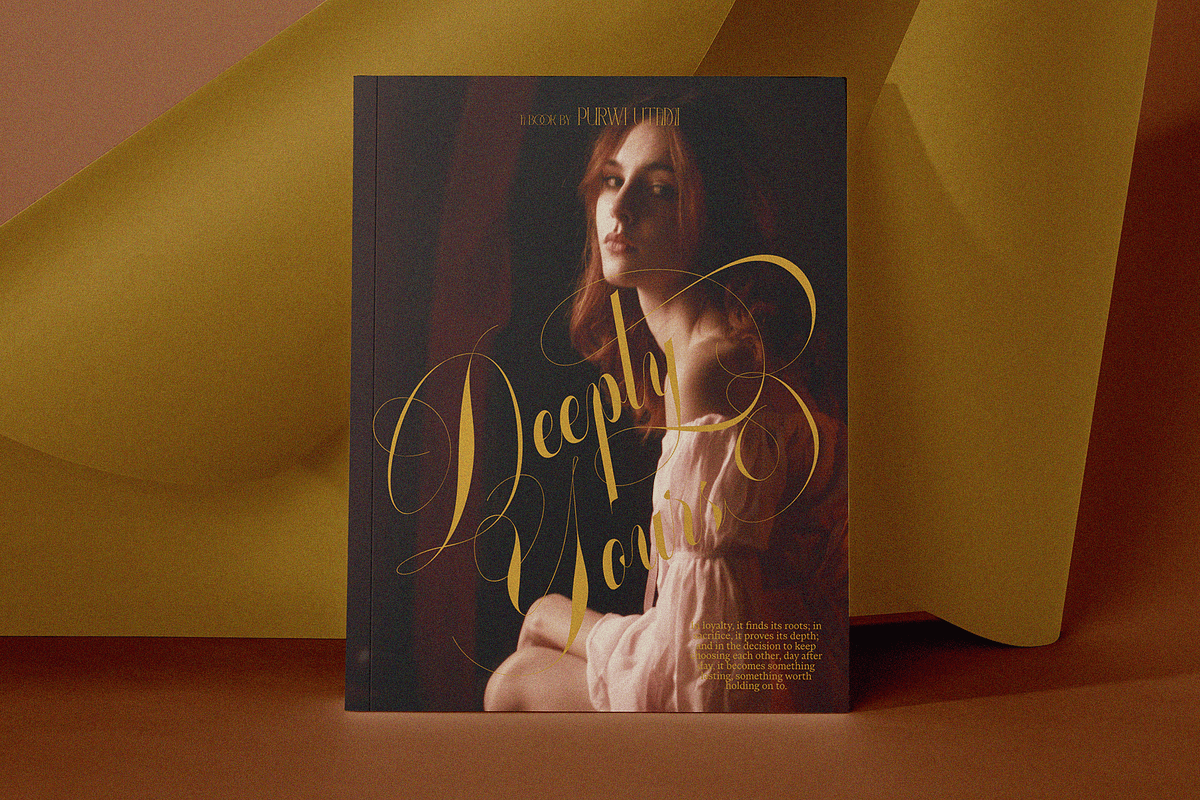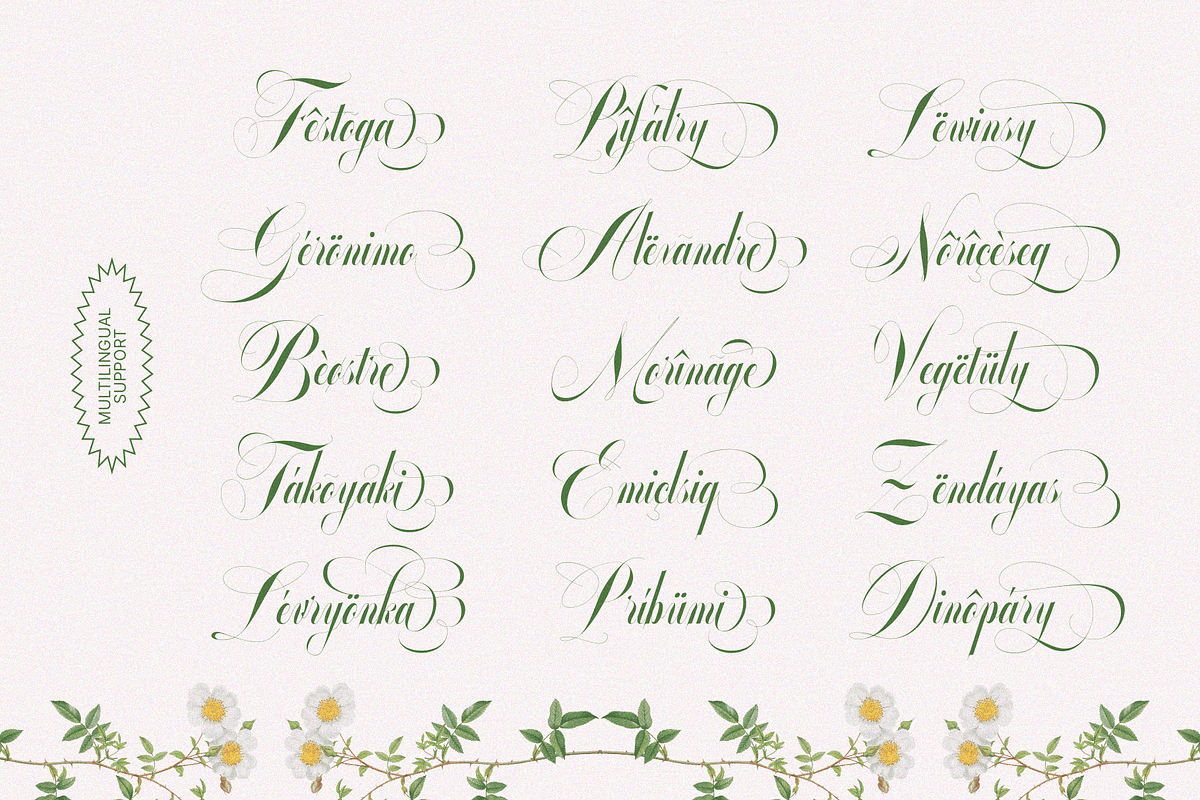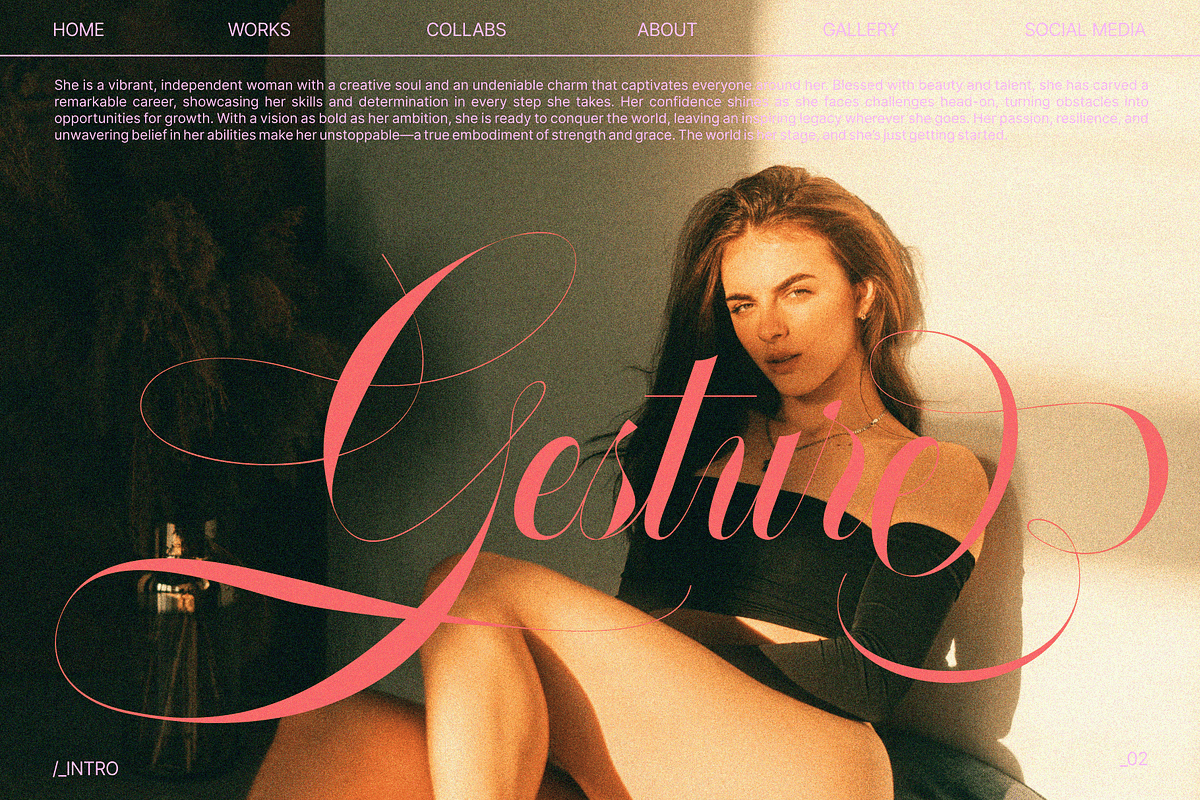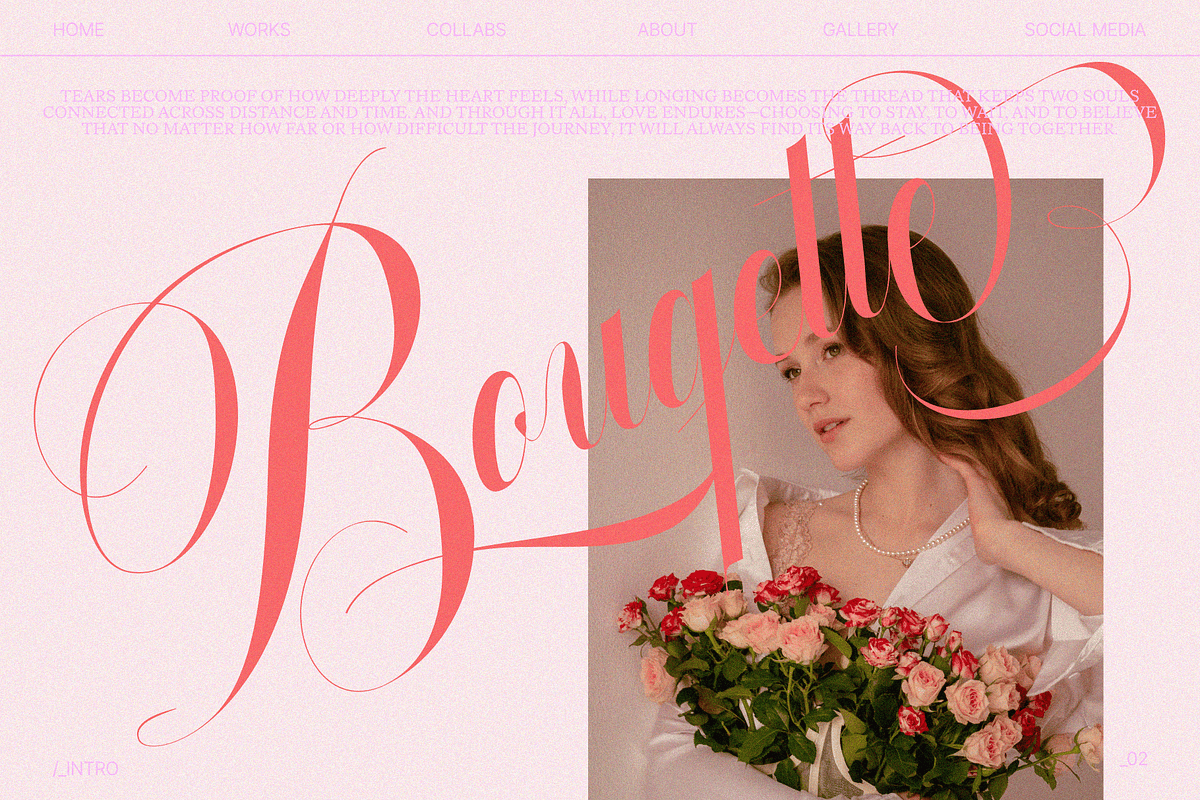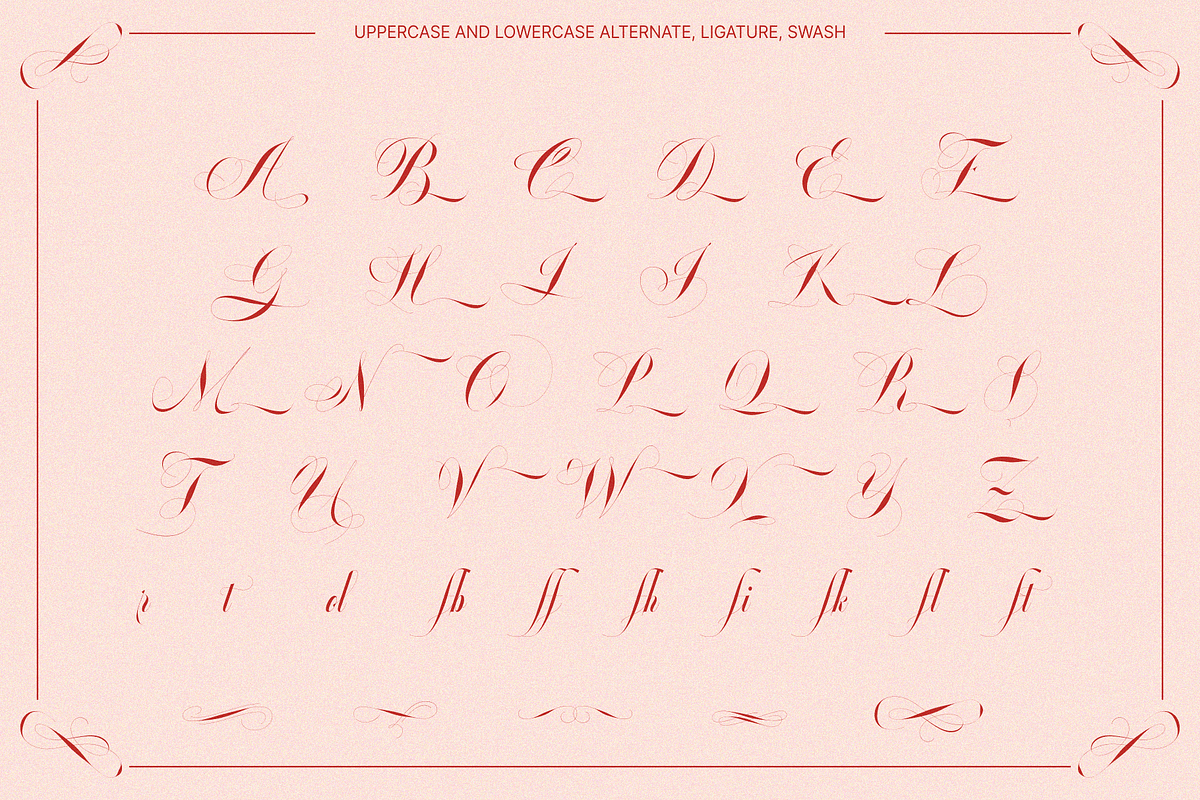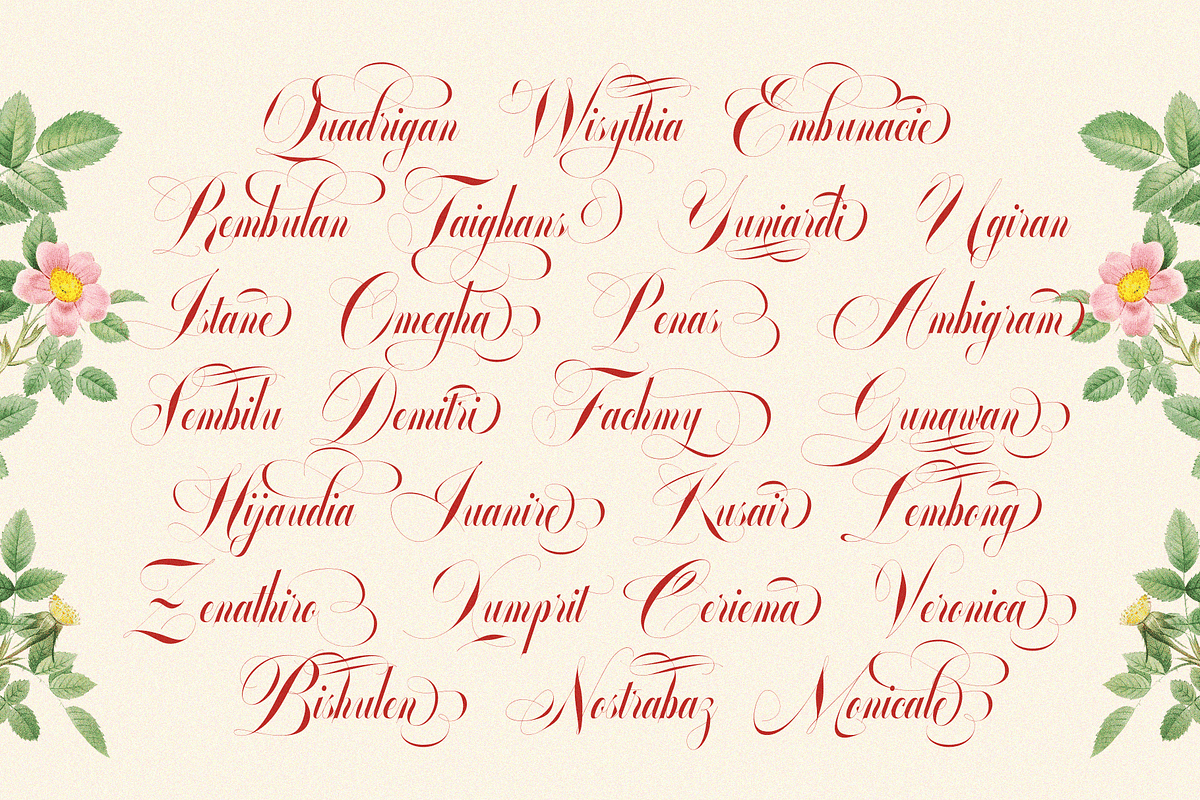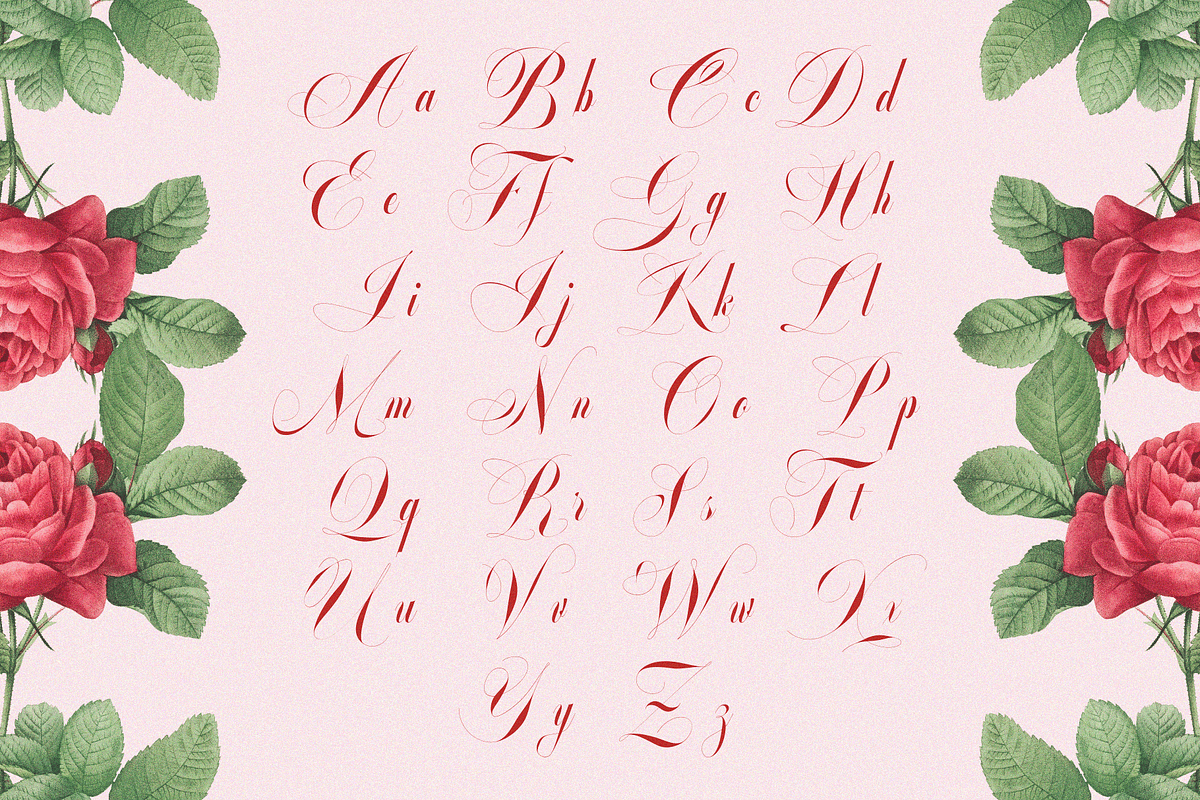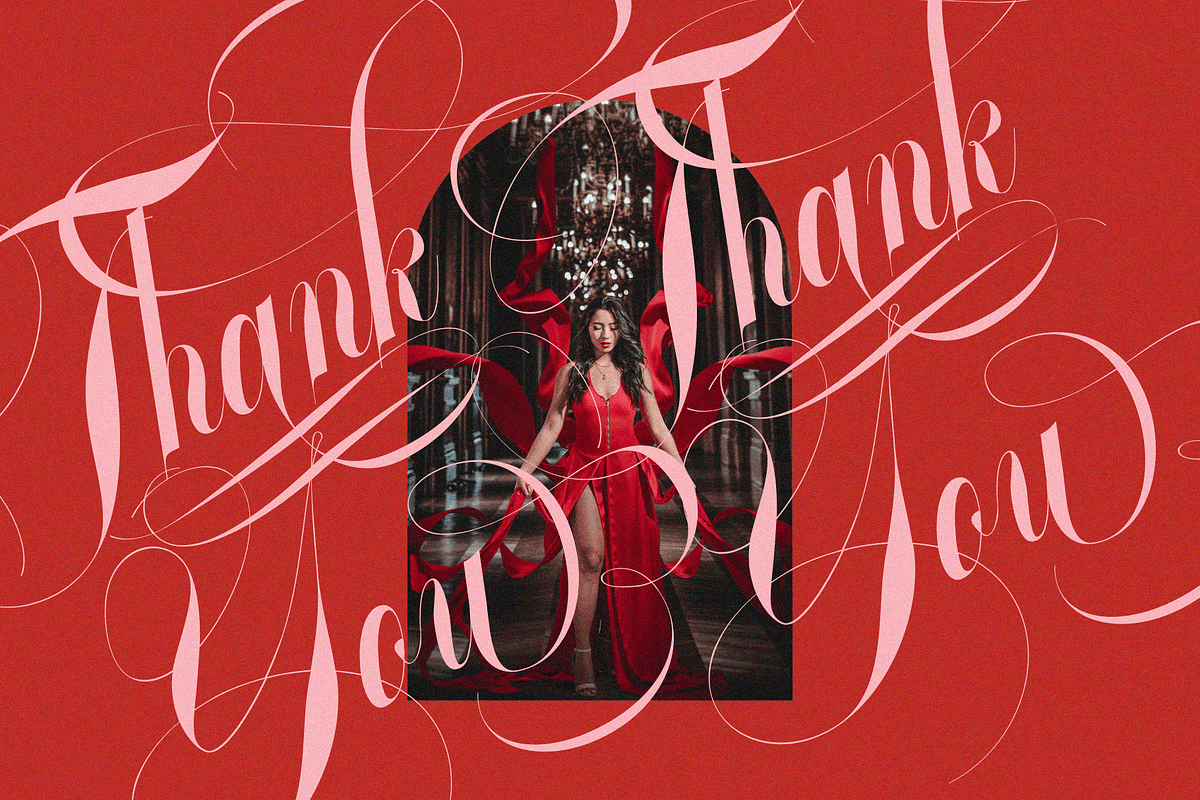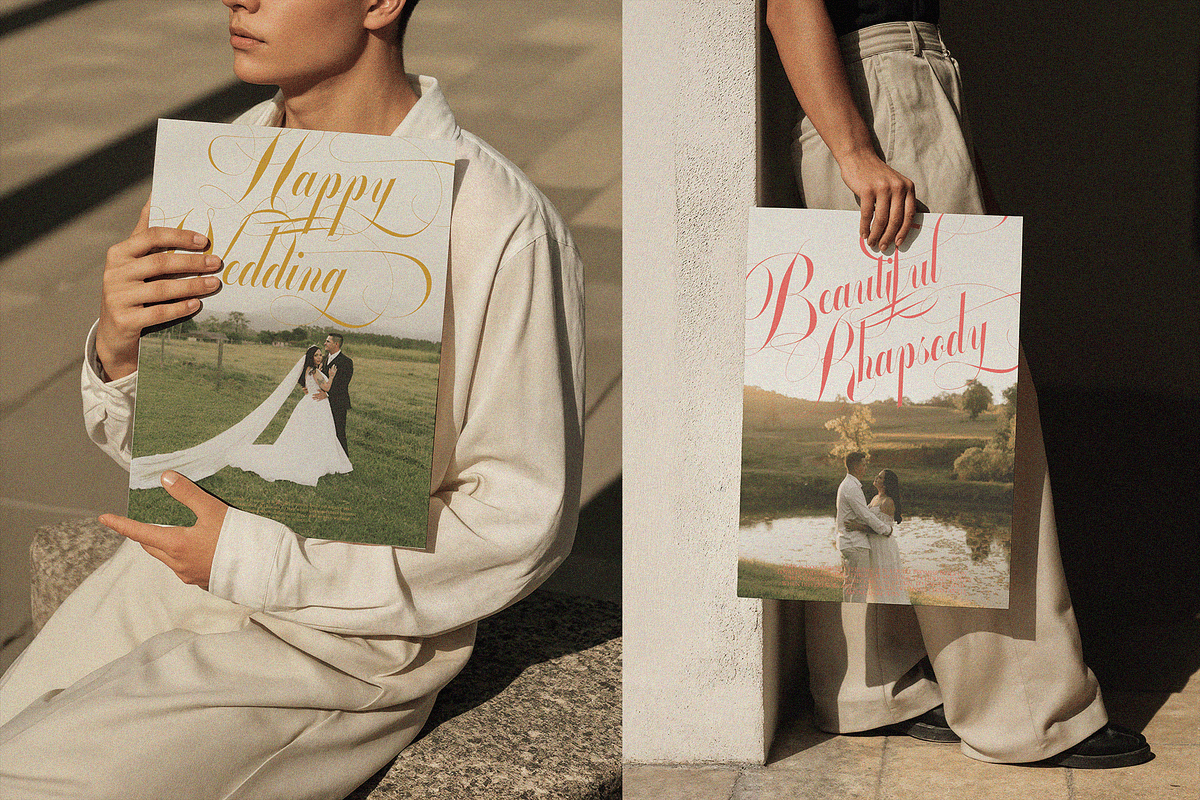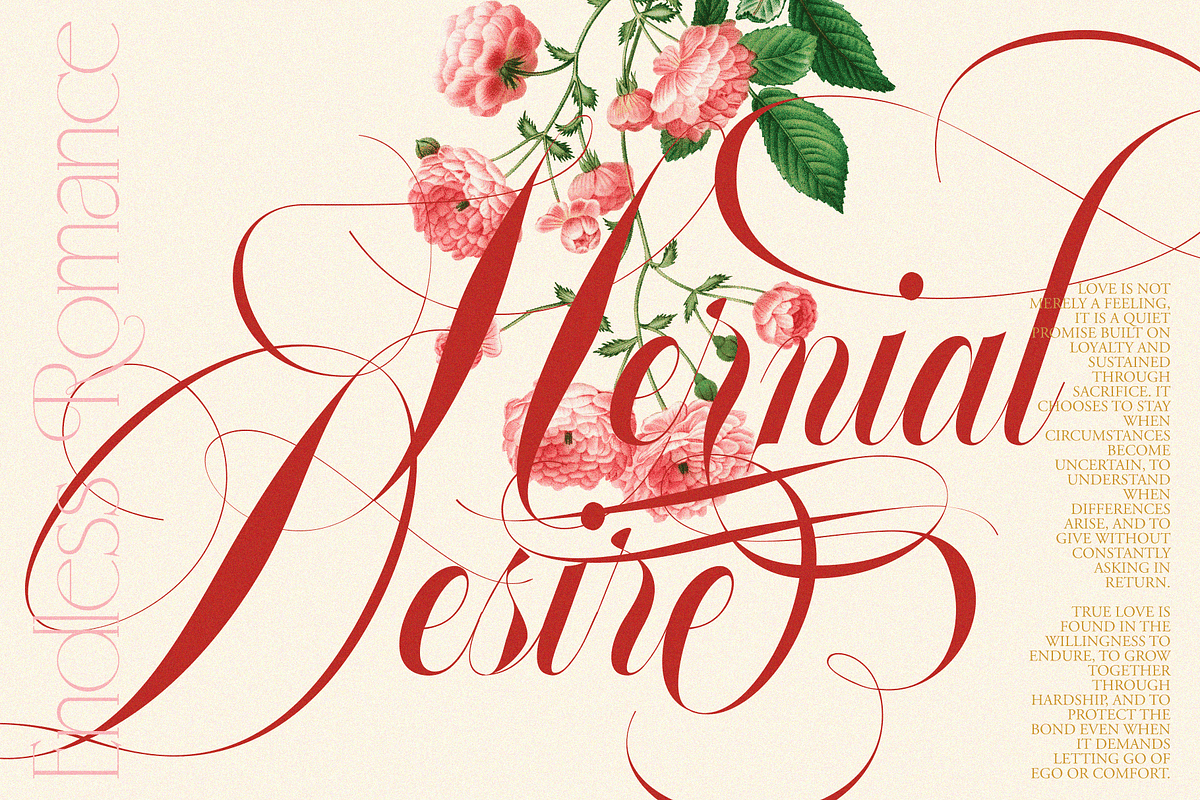
GLOWING ROMANCE — Luxury Calligraphy
GLOWING ROMANCE is a timeless modern script calligraphy font that embodies elegance, luxury, and refined beauty. Designed with flowing strokes and graceful curves, it delivers a lavish and premium aesthetic that feels both romantic and sophisticated. Every letter is carefully crafted to create a harmonious balance between bold expression and delicate elegance, making it perfect for high-end visual storytelling.
With its smooth connections and elegant rhythm, GLOWING ROMANCE elevates any logo, brand, or fashion identity with a sense of glamour and exclusivity. This script font captures the essence of luxurious beauty, cosmetic, and skincare branding, offering a rich and aesthetic look that feels both modern and timeless. Its refined calligraphic style adds a touch of fancy charm and graceful personality to every design.
Whether you're building a premium brand or crafting elegant visuals, GLOWING ROMANCE transforms typography into an emotional experience. It’s a script font designed for those who seek beauty, sophistication, and a lasting impression, perfect for creating a brand that feels truly luxurious.
FEATURE
- Uppercase & Lowercase Letters
- Numeral, Punctuation Marks, Currencies & Symbol Set
- Alternate, Stylistic Set & Ligature
PERFECT FOR
- Luxury Logo & Branding
- Fashion & Boutique Identity
- Beauty, Cosmetic & Skincare Packaging
- Elegant Wedding Invitations
- Premium Social Media Visuals
- Glamour Editorial Design
- Signature Logo & Personal Branding
- High-End Product Labels